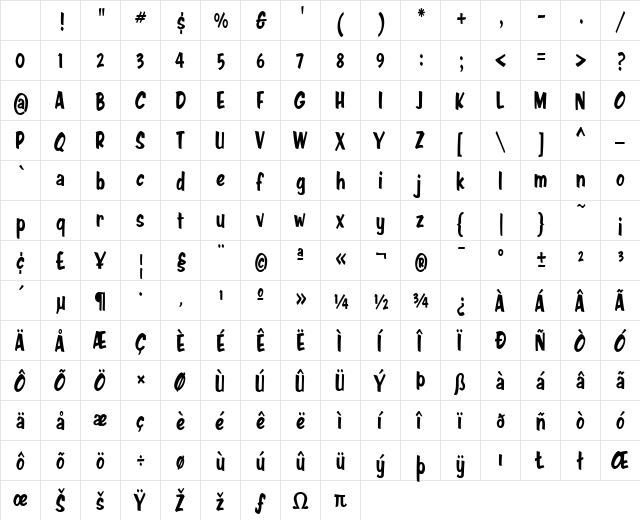
Complete Java Jive Condensed Regular glyph index. Displaying only characters natively supported by Java Jive Condensed Regular font.
Java Jive Condensed is a composed and adaptable typeface that performs quietly and consistently across a wide range of design contexts. Its narrow stance lets it pack a punch even in space-constrained designs.